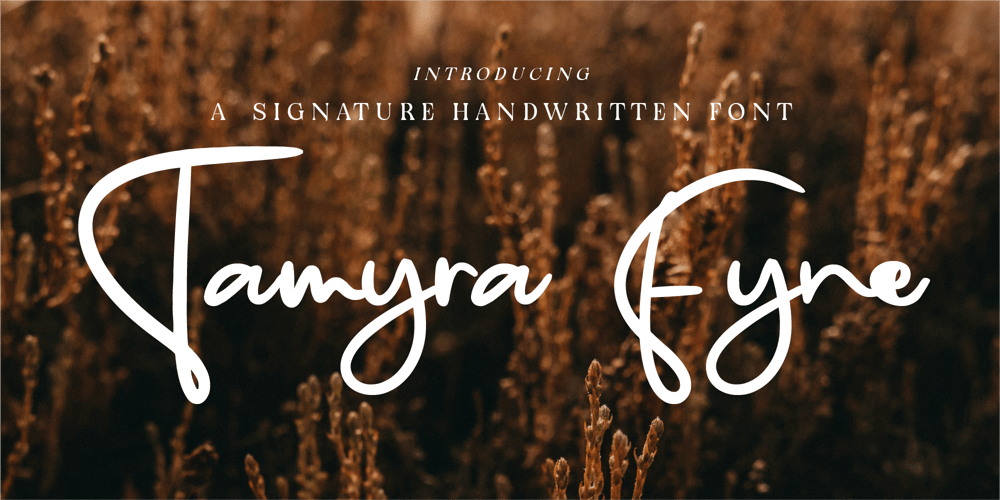
CF Tamyra Fyne
CF Tamyra Fyne font
CF Tamyra Fyne Font Family was designed by Gilang Mei Nugraha, Frederik Aristaputra and published by Creatifont Studio. CF Tamyra Fyne contains 2 styles and family package options. Tamyra Fyne – A Sophisticated Signature Handwritten FontIntroducing Tamyra Fyne, a graceful and stylish signature font that exudes elegance and authenticity. With its fluid strokes and naturally flowing letterforms, this typeface brings a personal and refined touch to any design.Designed for luxury branding, personal signatures, wedding stationery, fashion labels, and stylish marketing materials, Tamyra Fyne strikes the perfect balance between modern minimalism and timeless sophistication. Its organic, handcrafted feel ensures every letter looks effortlessly beautiful, as if written with a fine ink pen.Why Choose Tamyra Fyne?✒ Signature-Style Elegance: Delicate yet bold strokes for a refined handwritten look.💼 Perfect for Luxury Branding: Ideal for high-end businesses, personal brands, and social media aesthetics.🌿 Natural Flow & Authentic Feel: Designed to mimic real handwriting with smooth, graceful curves.🎨 Versatile & Chic: A must-have for logos, invitations, product packaging, and editorial design.Enhance your designs with Tamyra Fyne, where every stroke tells a story of elegance and prestige. Download now and make your brand unforgettable! ✨🖋A SUMMARY OF WHAT’S INCLUDED:- Standard Character A-Z, a-z, 0-9, Punctuation & symbols- Regular and Italic- Works on PC & Mac- Simple installation- Accessible in Adobe Creative Suite (Ai, Ps, Id, etc.) even work on Microsoft Word.- PUA Encoded Characters – Fully accessible without additional design software.🌟If you come across any issues or notice anything we might have overlooked while using this product, please feel free to reach out to us. We greatly value your feedback as it helps us enhance and refine our products. Thank you!